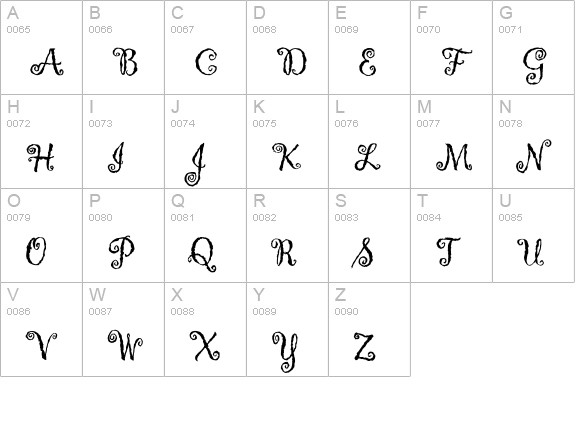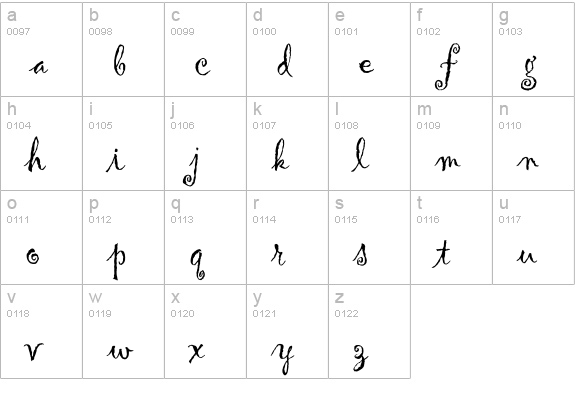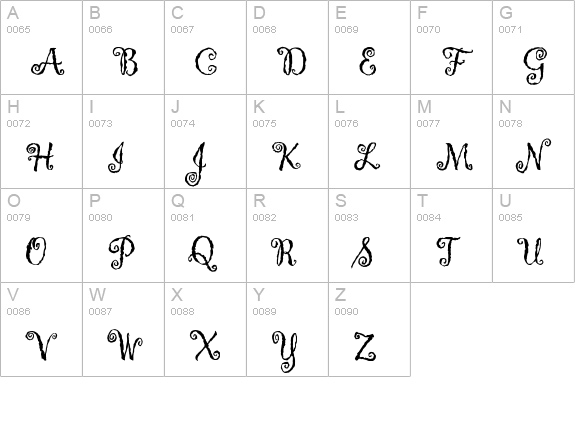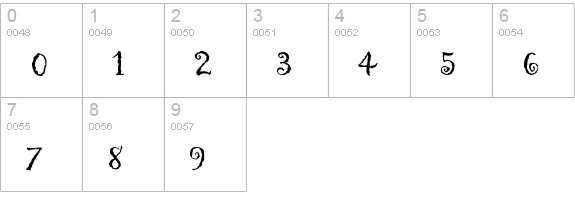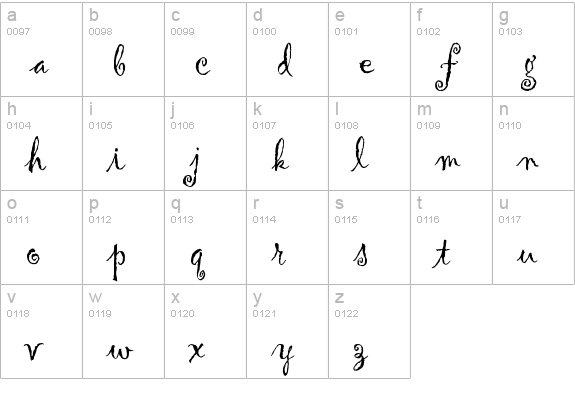
Gigi font is a charming and elegant typeface that exudes a sense of sophistication and style. Its unique curves and flowing lines make it perfect for adding a touch of class to any project. Whether you're designing invitations, logos, or branding materials, Gigi font will elevate your design to the next level. What's even better is that Gigi font is available for free on FontsMarket.com. You can easily download this beautiful font and start using it in your projects right away. Don't miss out on the opportunity to enhance your designs with the timeless beauty of Gigi font.